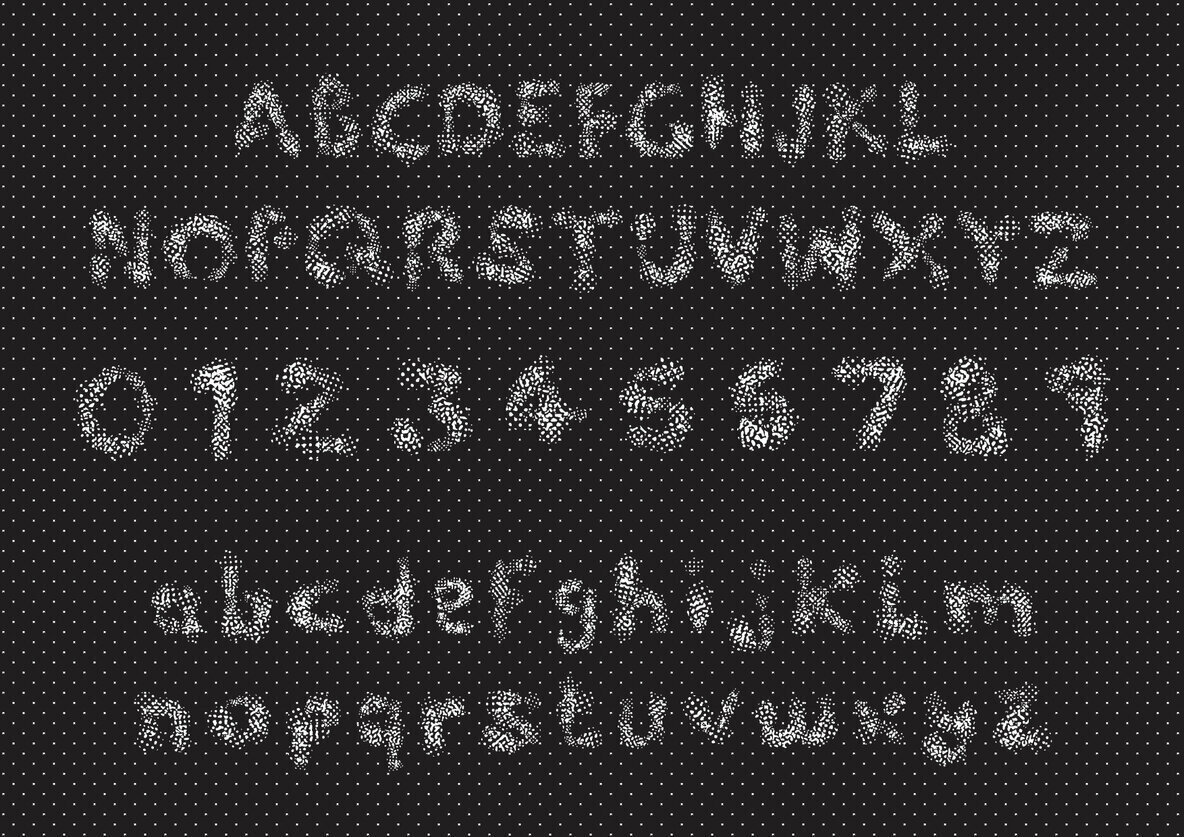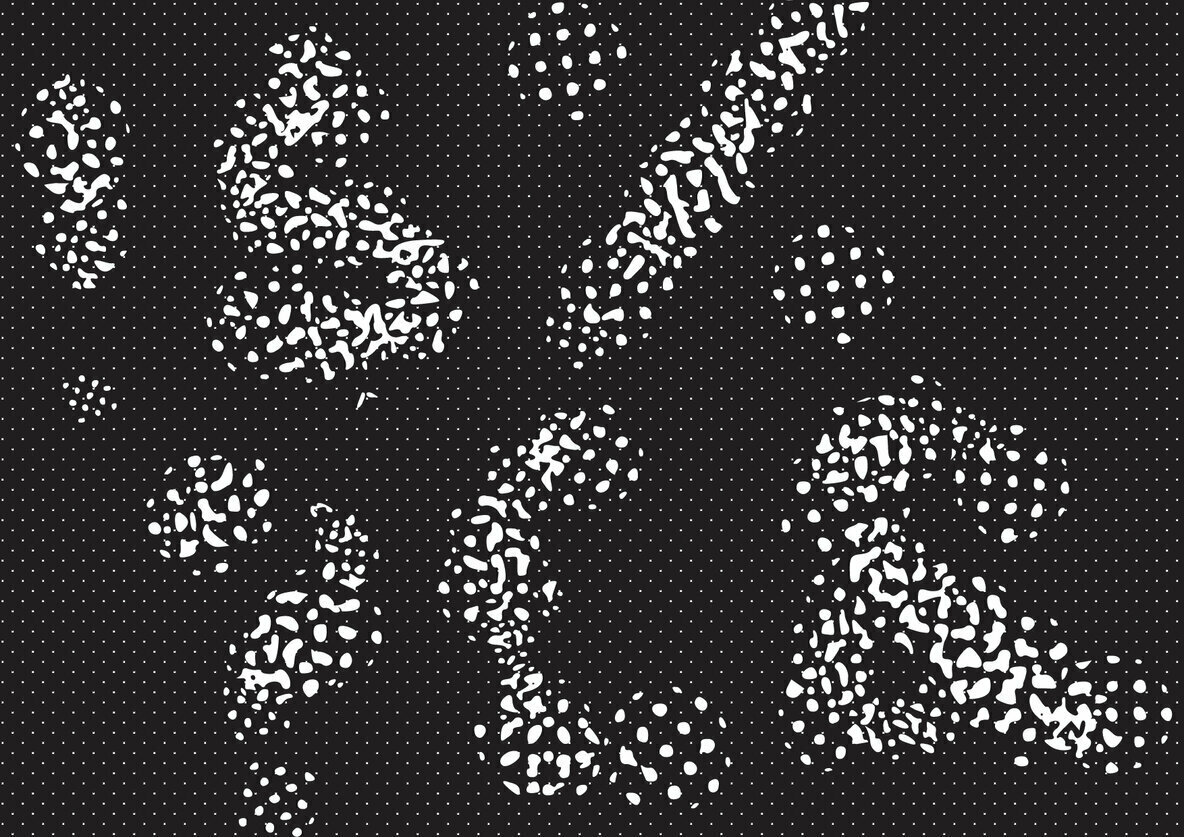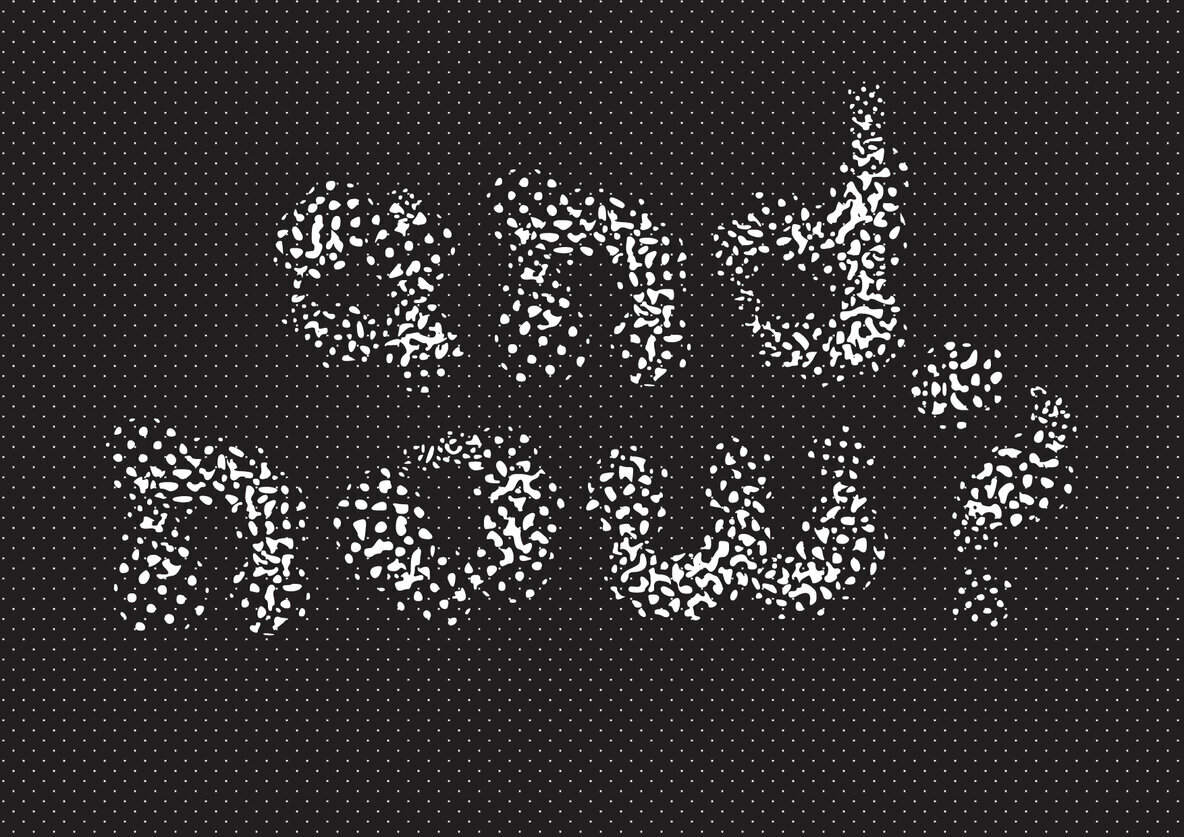
Eye Test Font
Eye test is an authentic display font. Each character is made of sized dots. Create outstanding and original crafts projects with this font!